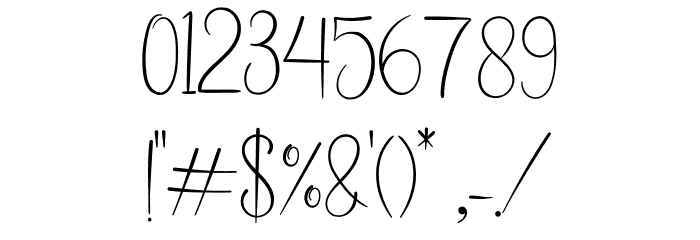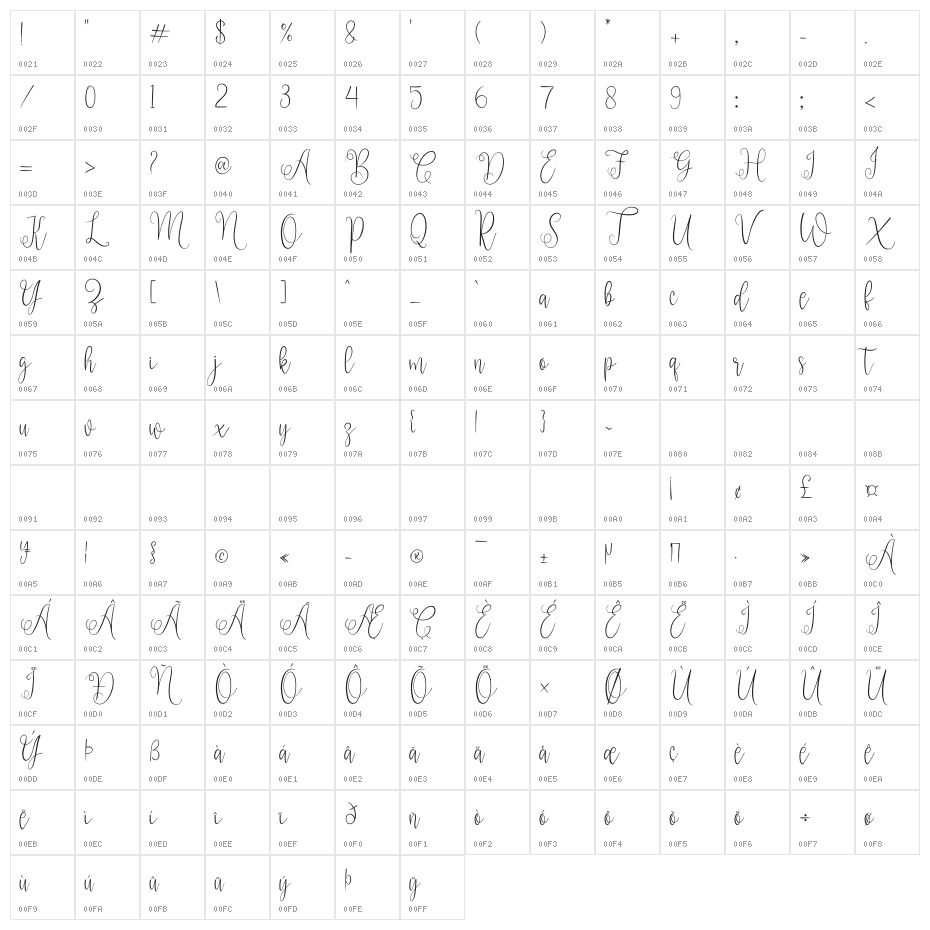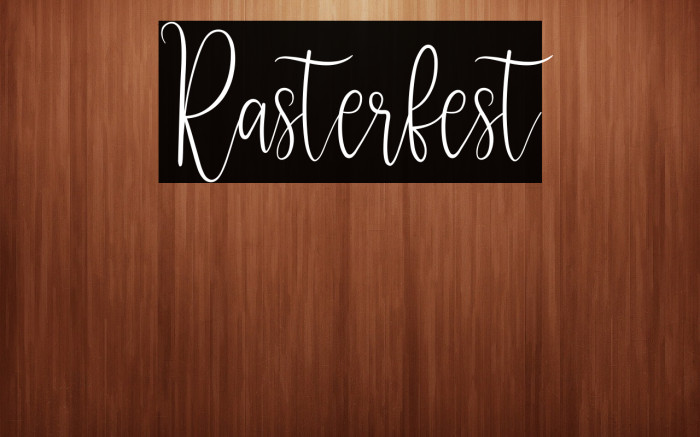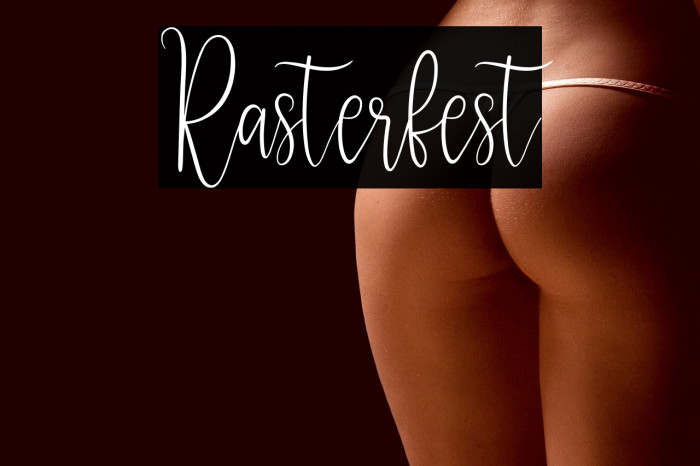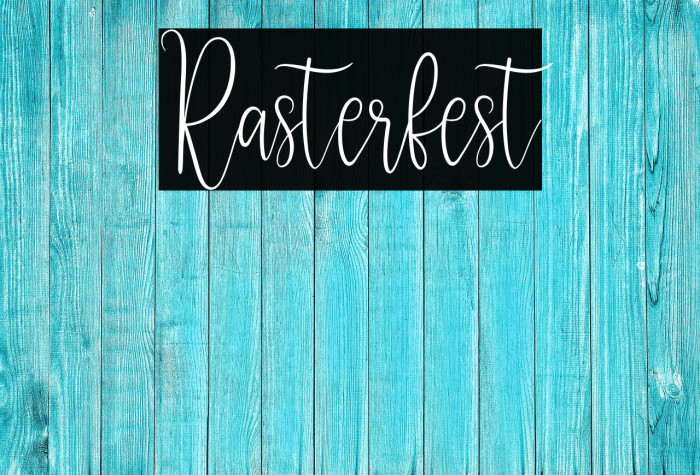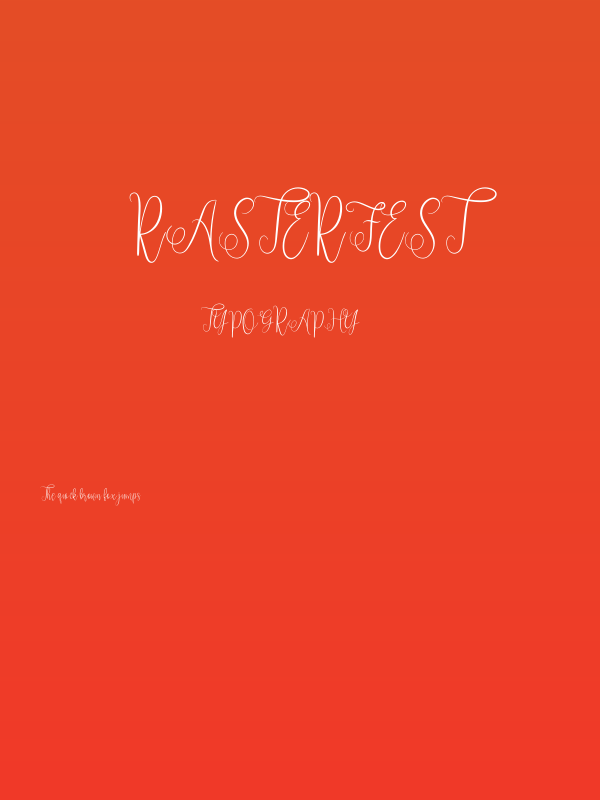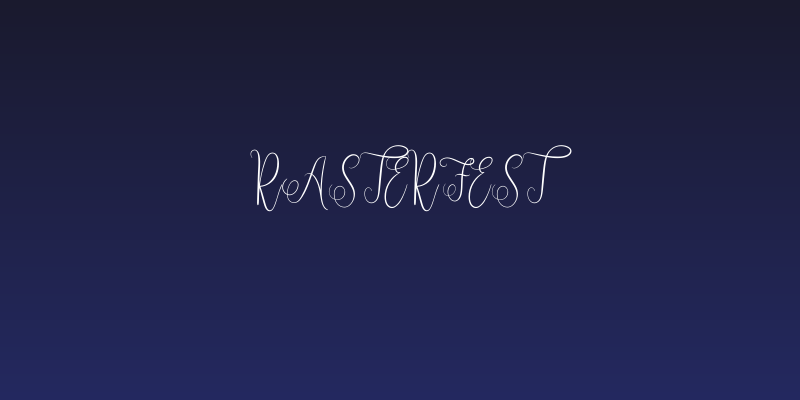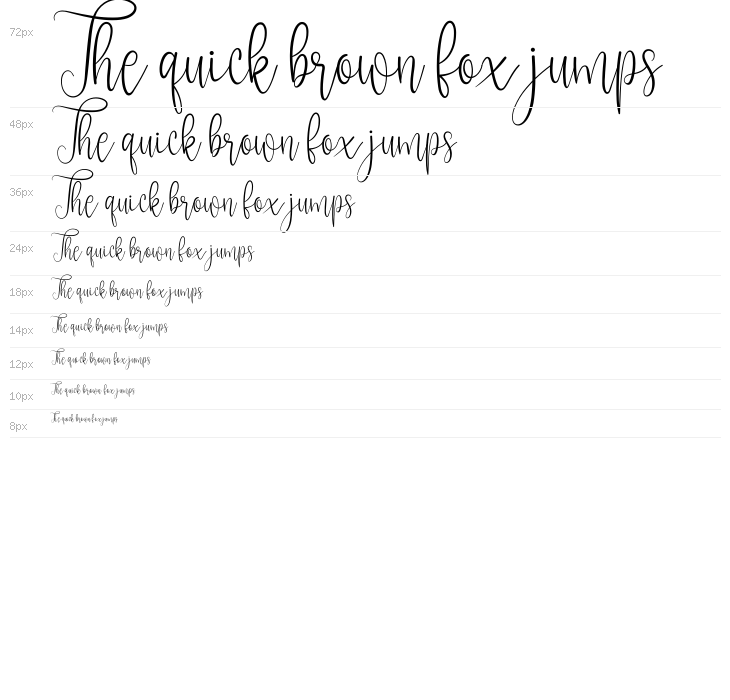
Rasterfest Font
Rasterfest Description
This font features an elegant and flowing script style, characterized by its intricate loops and swirls. The uppercase letters are particularly ornate, with exaggerated curves that give a sense of movement and grace. The lowercase letters maintain a consistent style, with a slightly more restrained flourish, ensuring readability while retaining a decorative touch. The numerals and special characters are designed to match the overall aesthetic, with similar curvatures and delicate lines. This font exudes a sense of sophistication and artistic flair, making it suitable for projects that require a touch of elegance and creativity.
Use CaseLogos, Invitations, Decorative text
Proposed ProjectsIdeal for wedding invitations, greeting cards, branding, and elegant packaging designs.